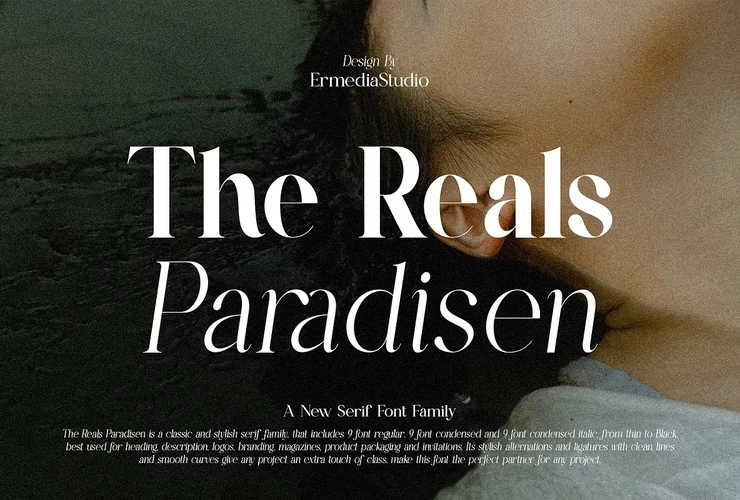
The Reals Paradisen: A Versatile Serif Family for Elegant and Professional Designs
The Reals Paradisen is a beautifully crafted serif typeface family that brings together classic sophistication with modern versatility. Designed to enhance any creative project, this serif family offers a total of 27 fonts, spanning thin to extra bold styles, including regular, condensed, and italic variants. Whether you’re designing logos, creating branding materials, working on editorial layouts, or producing elegant invitations, The Reals Paradisen’s clean lines and refined curves add a touch of class to any design.
Key Features of The Reals Paradisen Serif Family
Diverse Font Styles: The Reals Paradisen provides 27 different styles across three categories: regular, bold, and bold italic. Each category includes nine variations ranging from thin to extra bold, with condensed and italic options to suit different design needs.
Elegant Ligatures and Alternates: The stylish ligatures and smooth alternations create beautiful connections between characters, making your typography look polished and professional.
Uppercase, Lowercase, and Multilingual Support: The Reals Paradisen offers full uppercase and lowercase sets, numbering, punctuation, and extensive multilingual support, making it adaptable to global design requirements.
Ideal Applications for The Reals Paradisen
Logo & Branding: The timeless elegance of The Reals Paradisen makes it a perfect fit for creating sophisticated and recognizable logos and brand identities.
Editorial Design & Print Media: The clean and smooth curves of the typeface enhance readability, making it ideal for magazines, book covers, and other editorial projects.
Product Packaging & Invitations: From high-end packaging to beautifully designed invitations, The Reals Paradisen adds a luxurious touch to any print material.
Digital & Web Design: With its versatile styles and excellent legibility, The Reals Paradisen is an excellent choice for website headers, social media graphics, and digital content.
Why Choose The Reals Paradisen?
The Reals Paradisen combines classic serif elegance with modern design versatility, making it a reliable font family for both creative and professional projects. Its comprehensive style range, advanced features, and clean aesthetics ensure that your designs stand out while maintaining a sophisticated and cohesive look. The Reals Paradisen is a must-have addition to any designer’s font library.